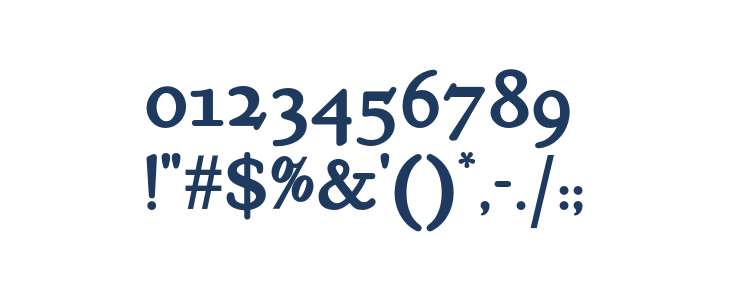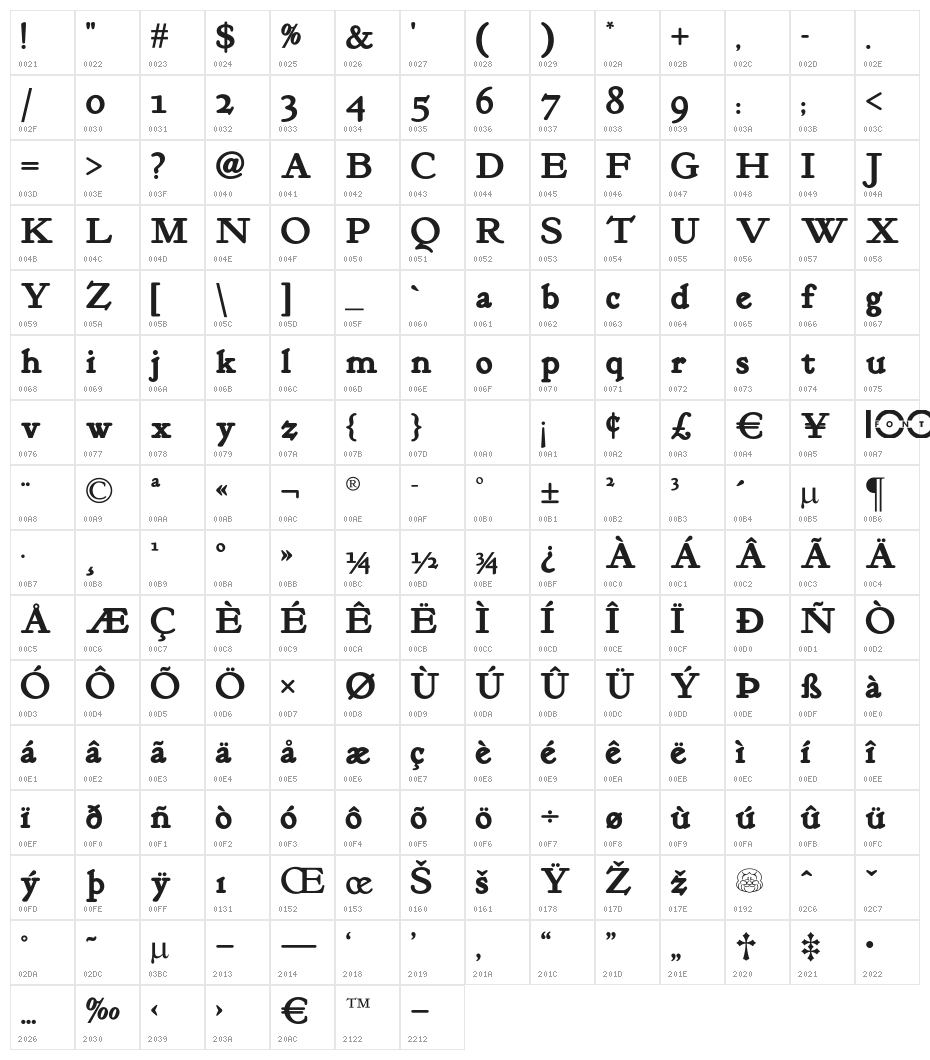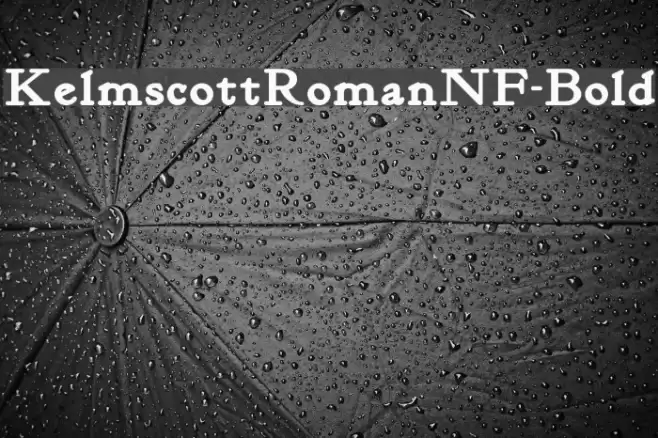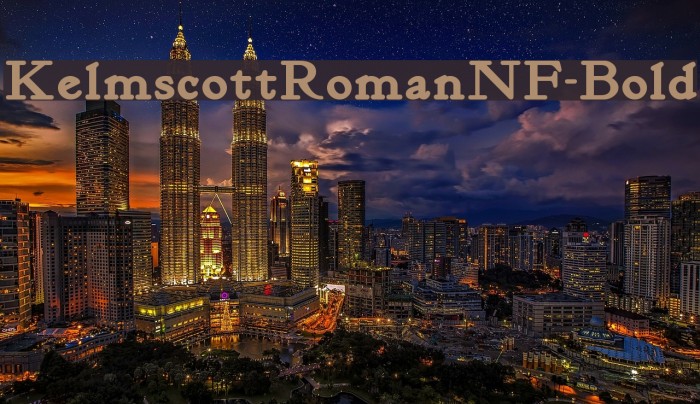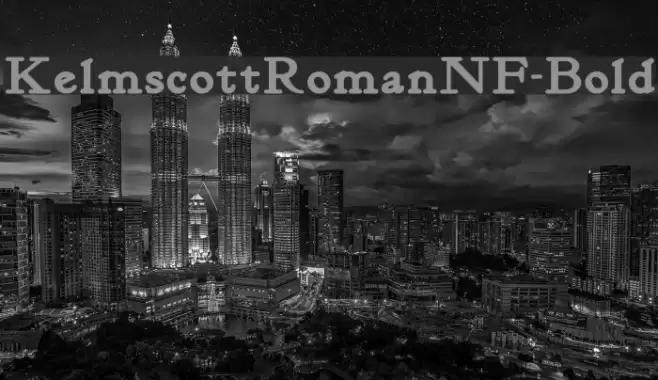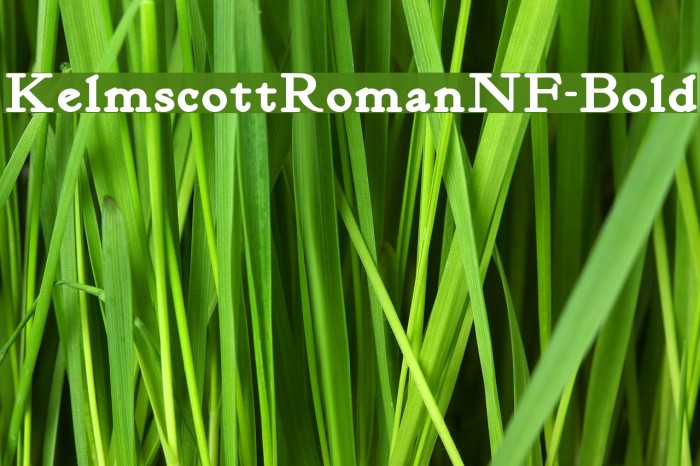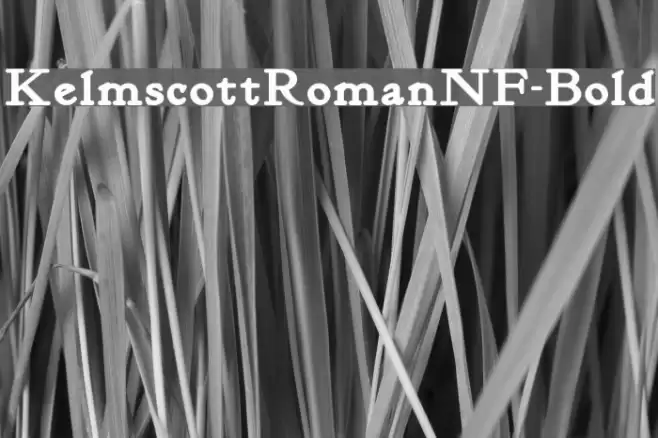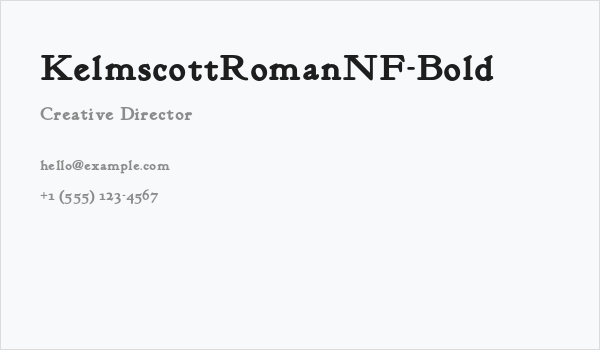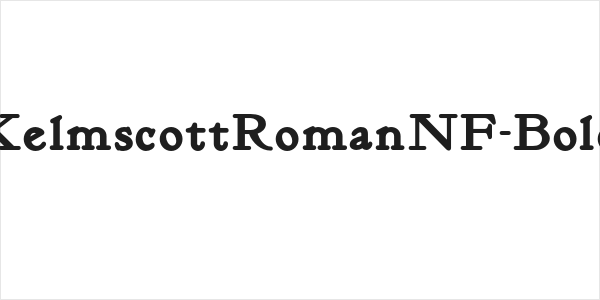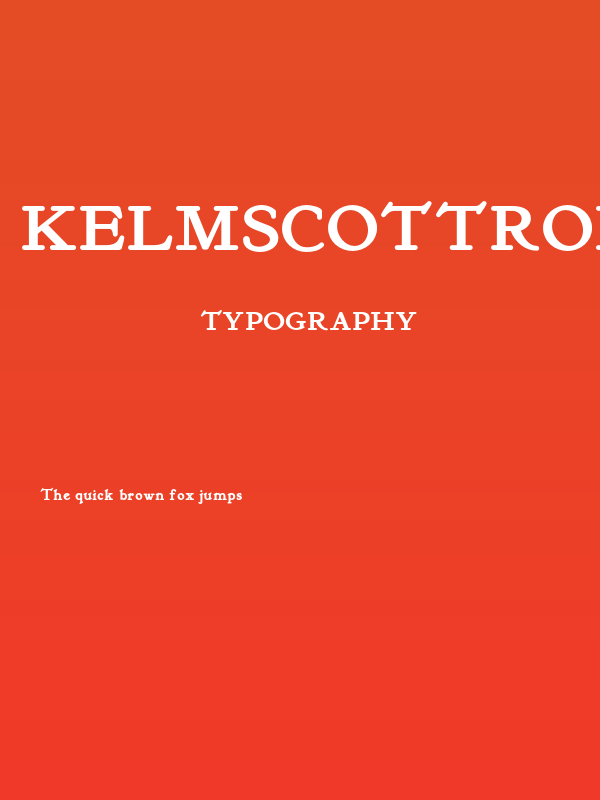
KelmscottRomanNF-Bold Font
KelmscottRomanNF-Bold Description
This font exhibits a classic and bold serif style with a strong presence. The uppercase letters are characterized by their sturdy serifs and consistent stroke width, giving them a traditional and authoritative appearance. The lowercase letters maintain a similar weight and style, with rounded edges that add a touch of softness to the overall design. The numerals are clear and legible, featuring the same boldness and serif detailing as the letters. Special characters are well-integrated, maintaining the font's cohesive look. This font's boldness and classic serif elements make it suitable for projects that require a strong and traditional aesthetic.
| Use Case | Headlines, Logos, Editorial design |
| Proposed Projects | Ideal for book covers, historical documents, branding materials, and editorial design. |